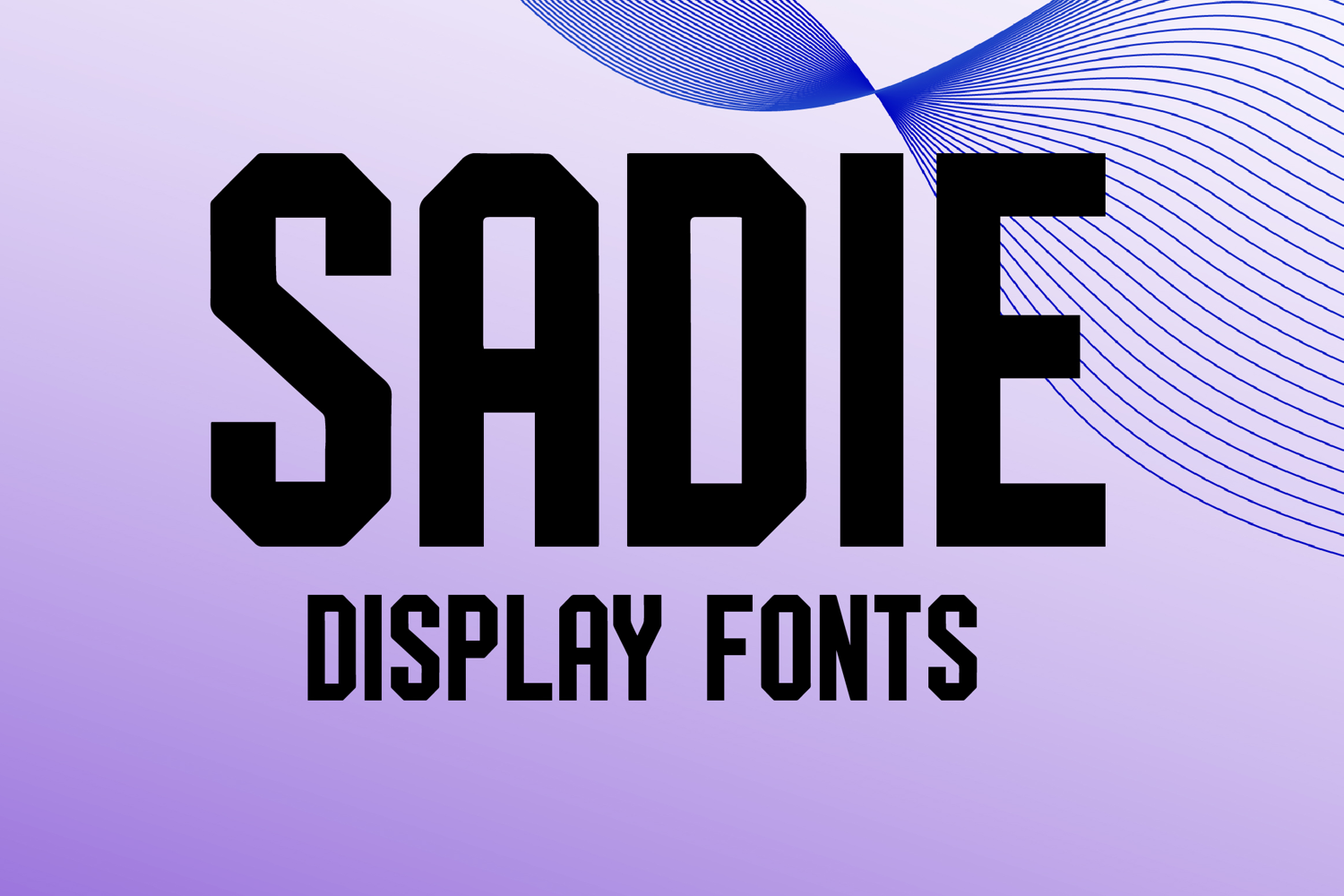
SADIE
SADIE is a bold display font with a strong geometric style and modern athletic character. Its uppercase letterforms feature thick blocky strokes, sharp angular corners, and a structured varsity-inspired look that creates a powerful, clean, and eye-catching statement. Designed with uppercase letters A–Z and numbers 0–9, SADIE is perfect for branding, posters, packaging, logos, headlines, sports-themed designs, and social media graphics that need a bold and memorable presence.